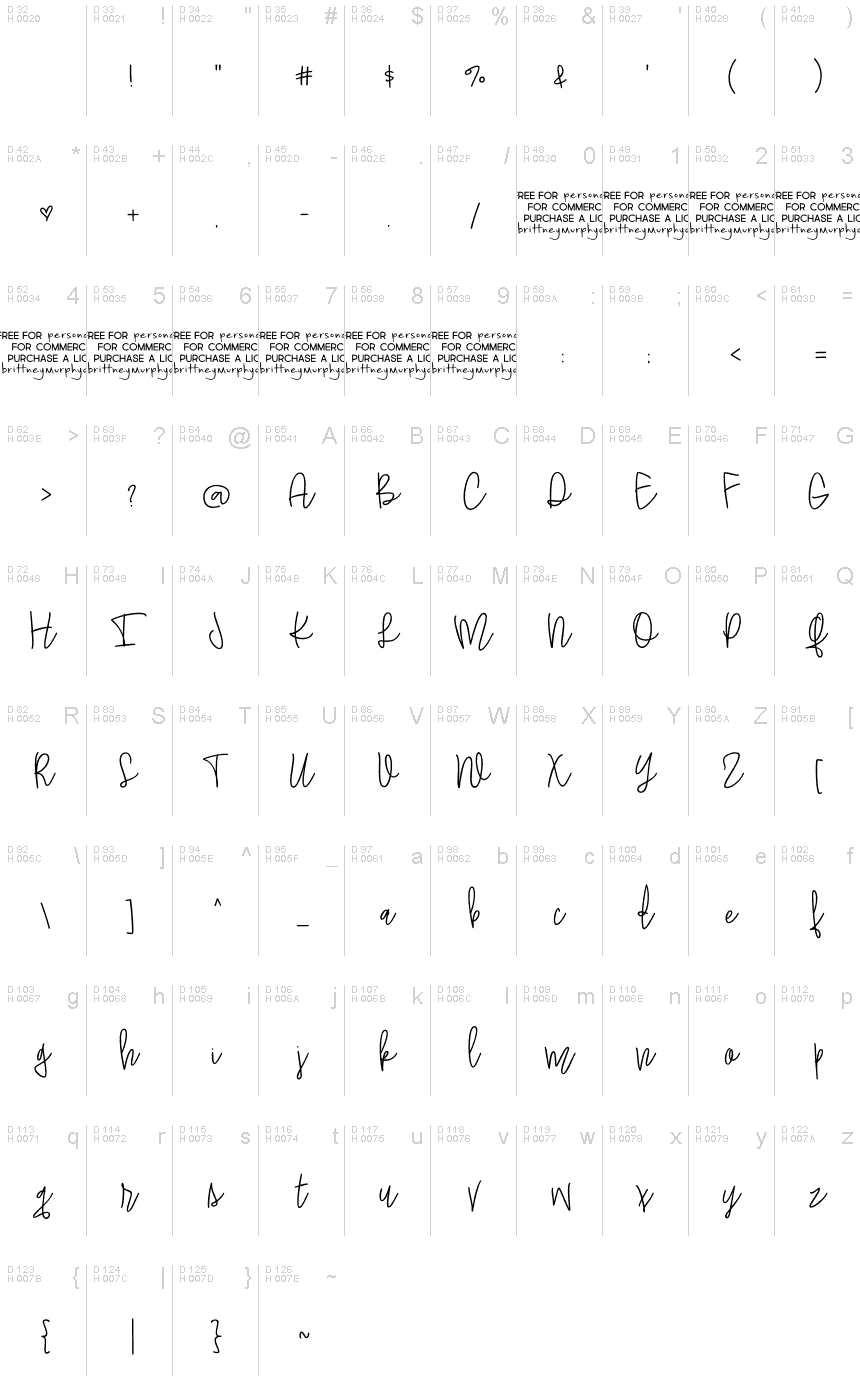
Quite*Charming Regular
Quite*Charming is a charming handwritten font designed by Brittney Murphy Design. Its light weight and condensed width make it perfect for projects that need a delicate touch without sacrificing legibility, such as wedding invitations, greeting cards, or product packaging. This font typeface adds a personal touch to any design project with its unique character and playful vibe. Whether you're creating social media graphics or designing an elegant logo, Quite*Charming is the perfect choice for adding personality and style to your work.
The Quite Charming font is a flirty script. Use the asterisk (*) for a heart!